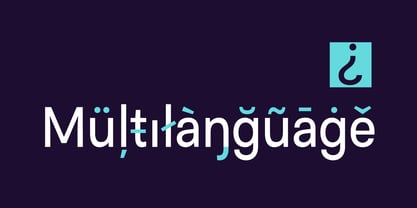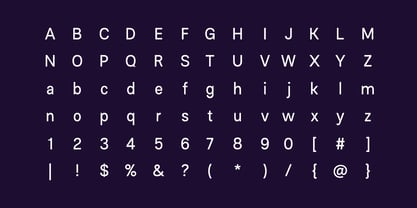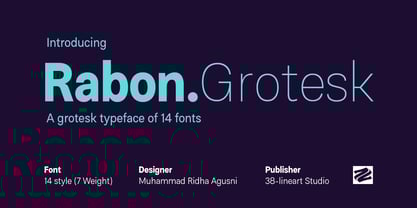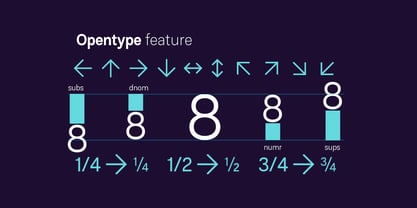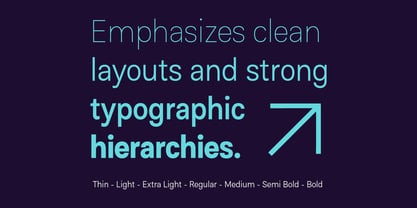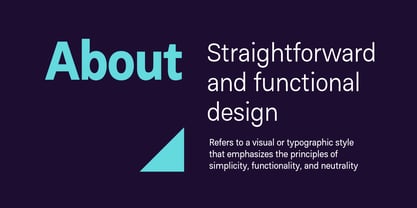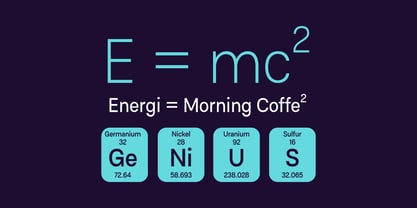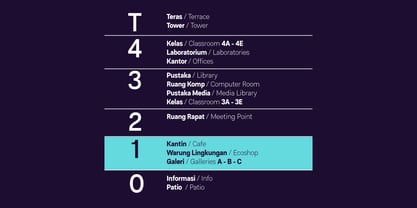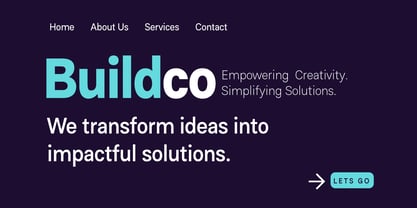
Rabon Grotesk
The Rabon Grotesk Font Family was designed by Muhammad Ridha Agusni and published by 38-lineart. Rabon Grotesk contains 15 styles and family package options. More about this family
Rabon Grotesk is a modern sans-serif typeface that embodies clarity and purpose. With its clean geometric structure softened by gentle curves, it strikes a perfect balance between precision and warmth. Offering seven versatile weights with italics, it adapts seamlessly to any design need, from bold headlines to refined body text. Designed to emphasize strong typographic hierarchies, Rabon Grotesk ensures your message stands out with confidence and clarity. Its thoughtful OpenType features like fractions, superscripts, and proportional numerals add practicality, while extensive multilingual support opens the door to global creativity. Simple yet powerful, Rabon Grotesk transforms functional design into timeless impact.